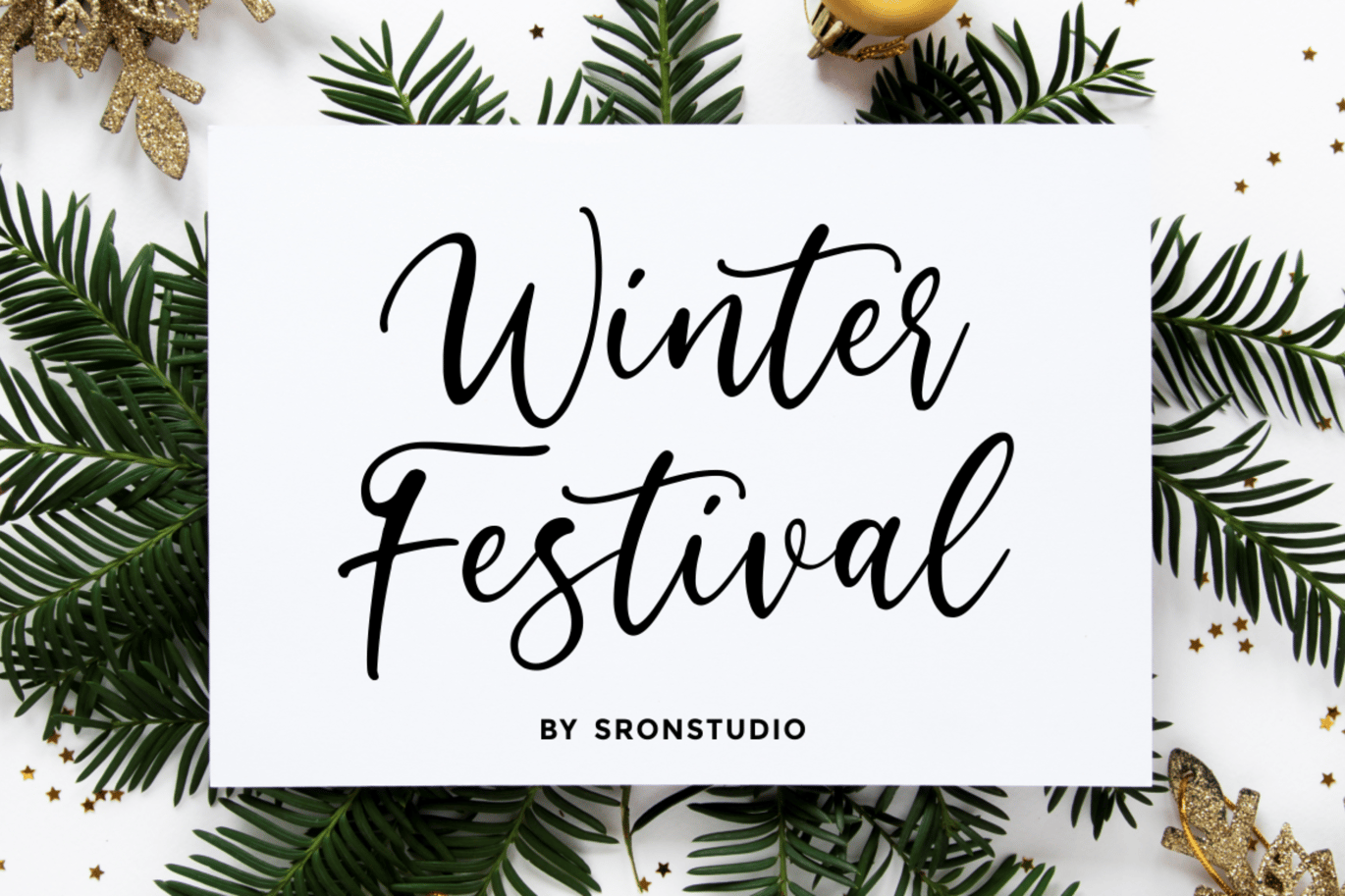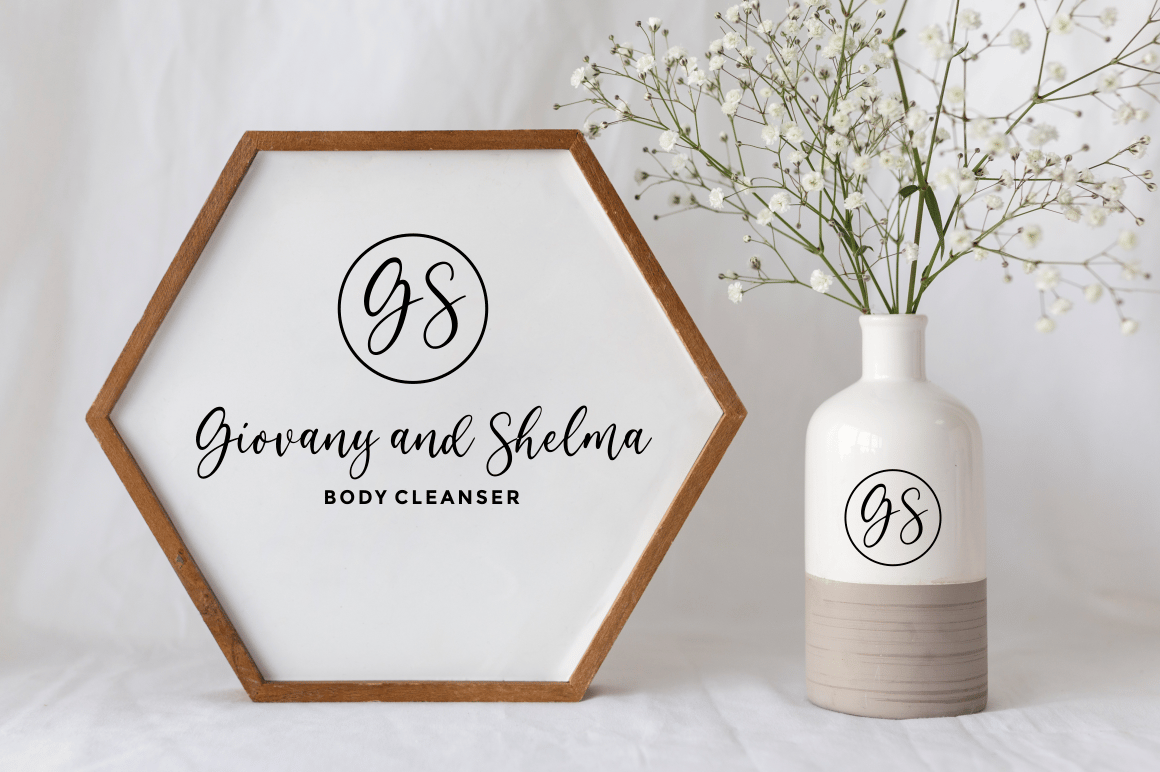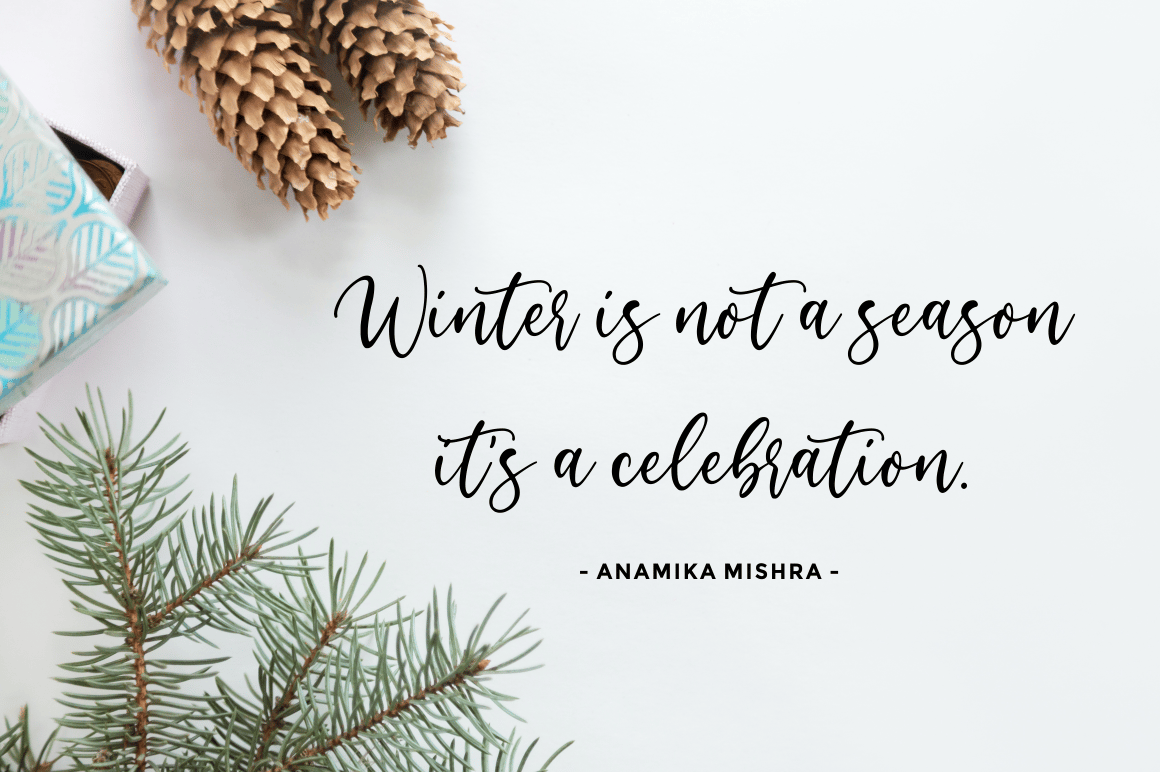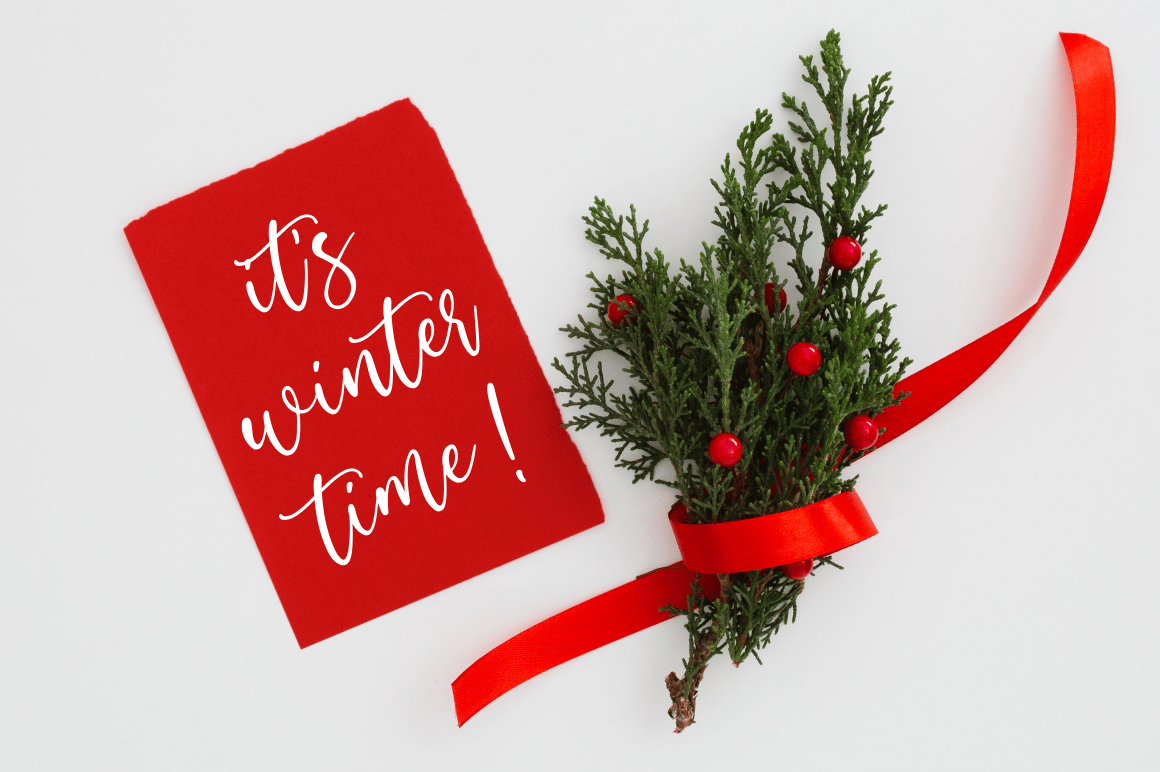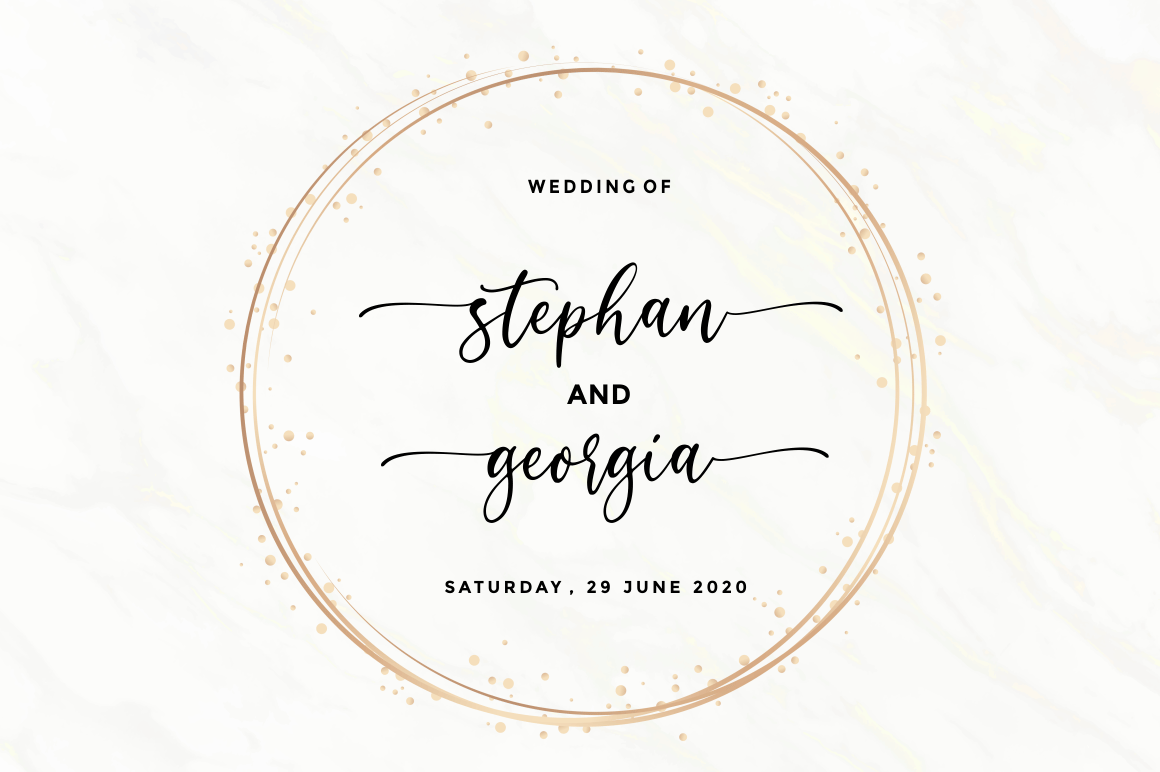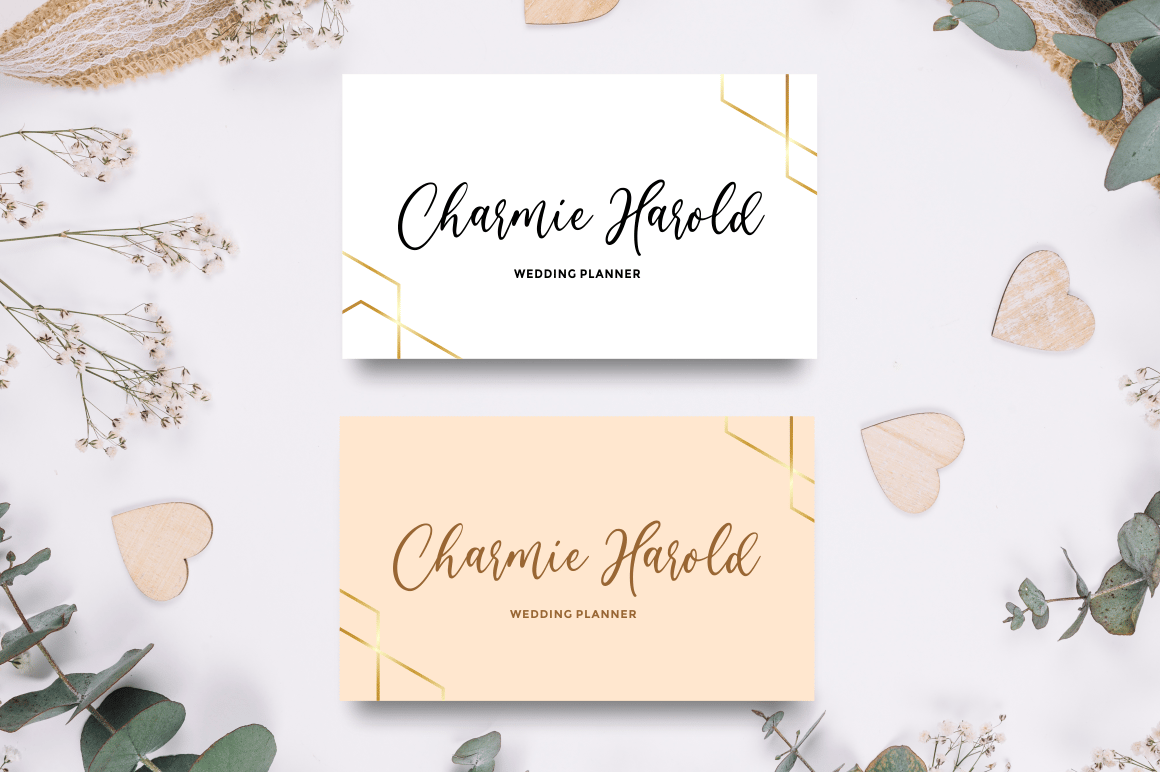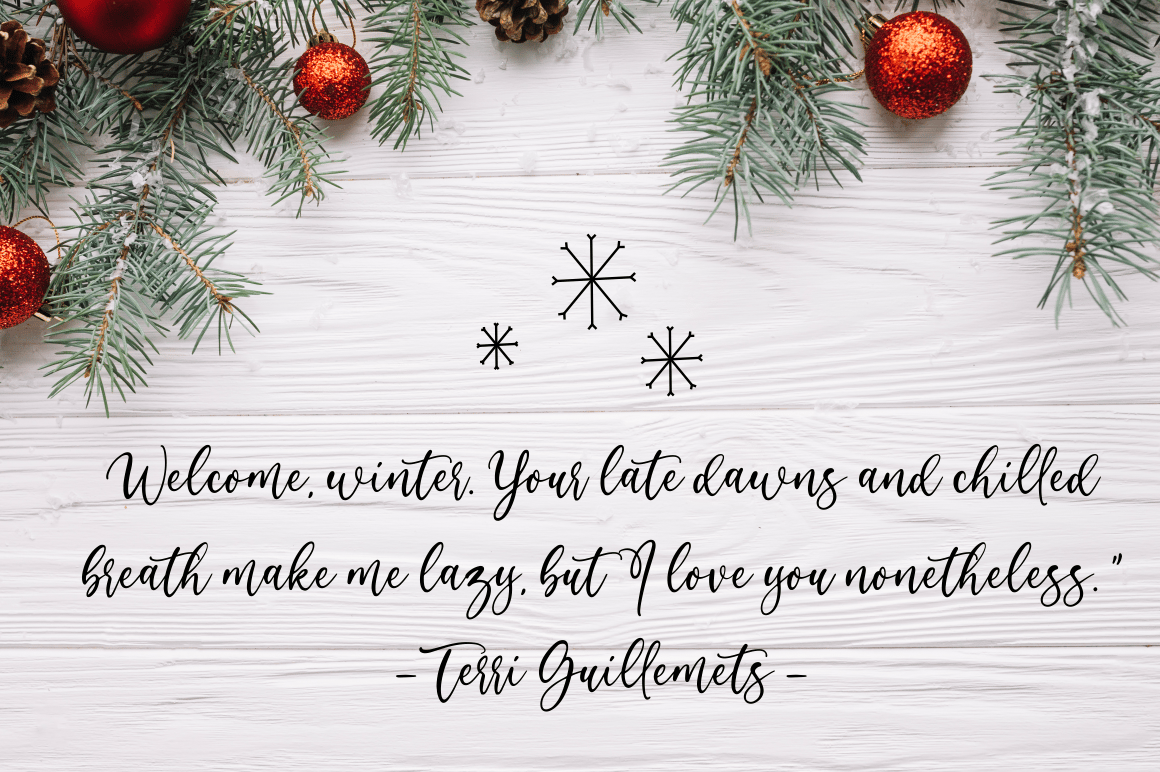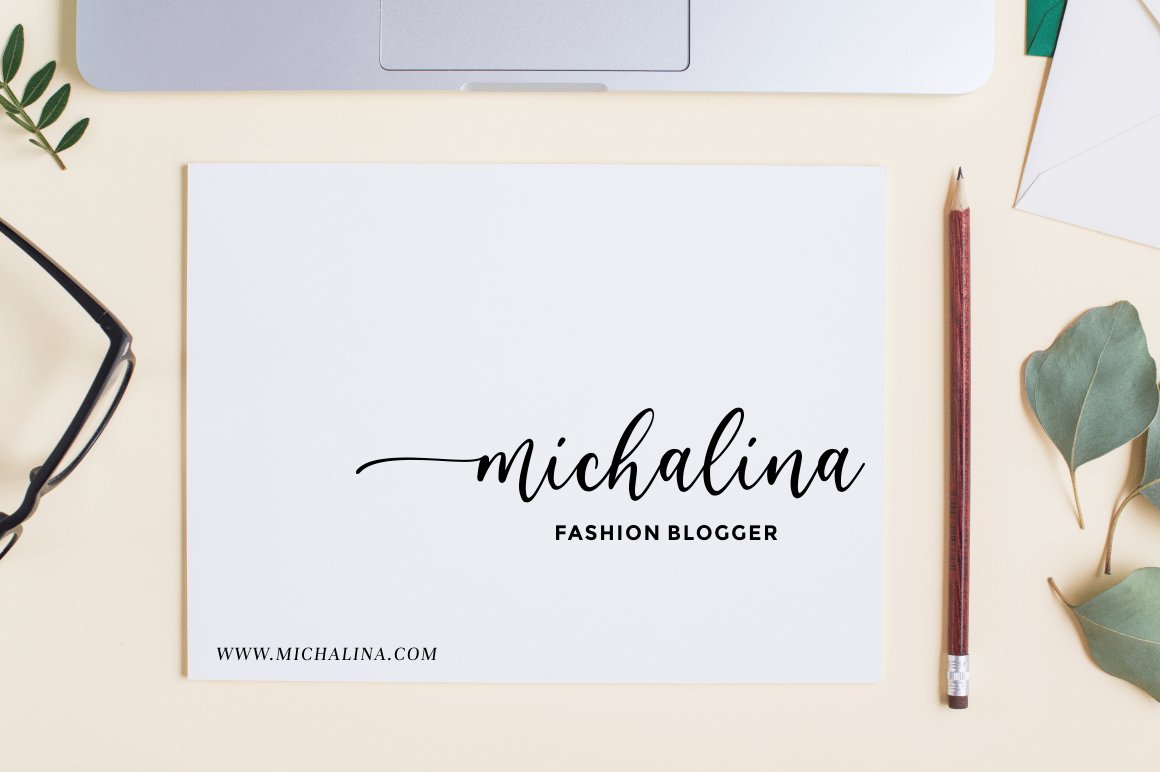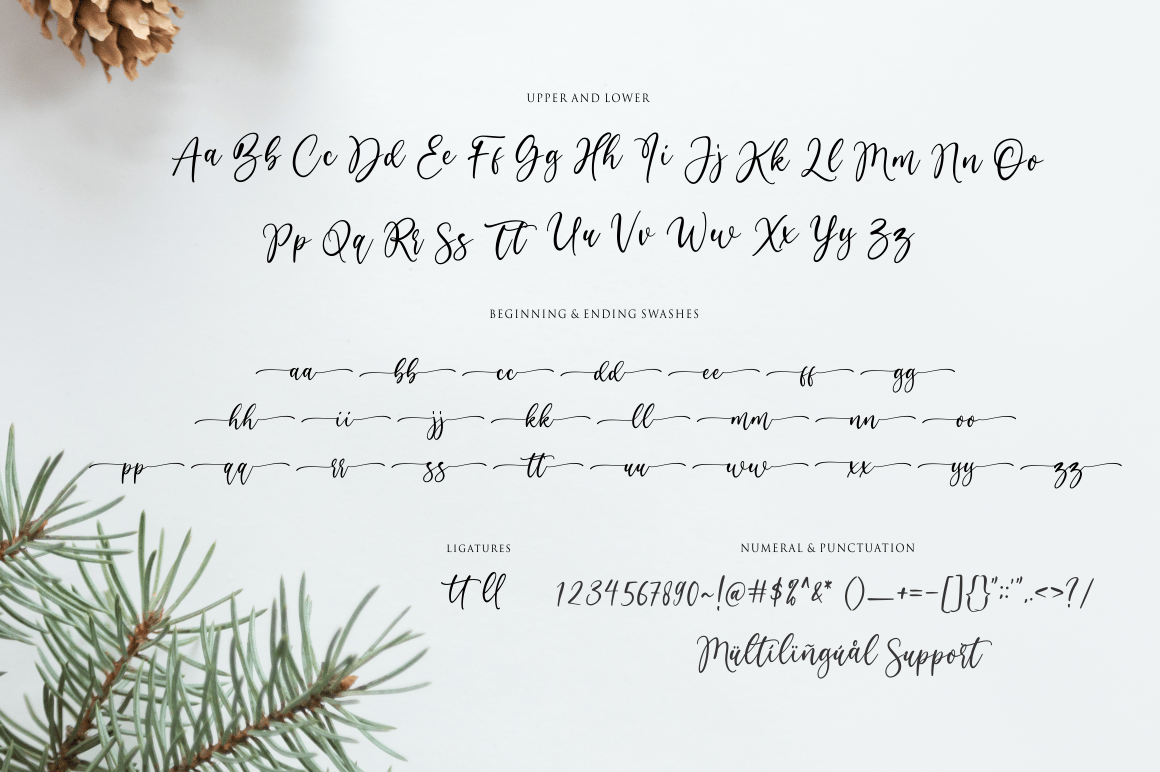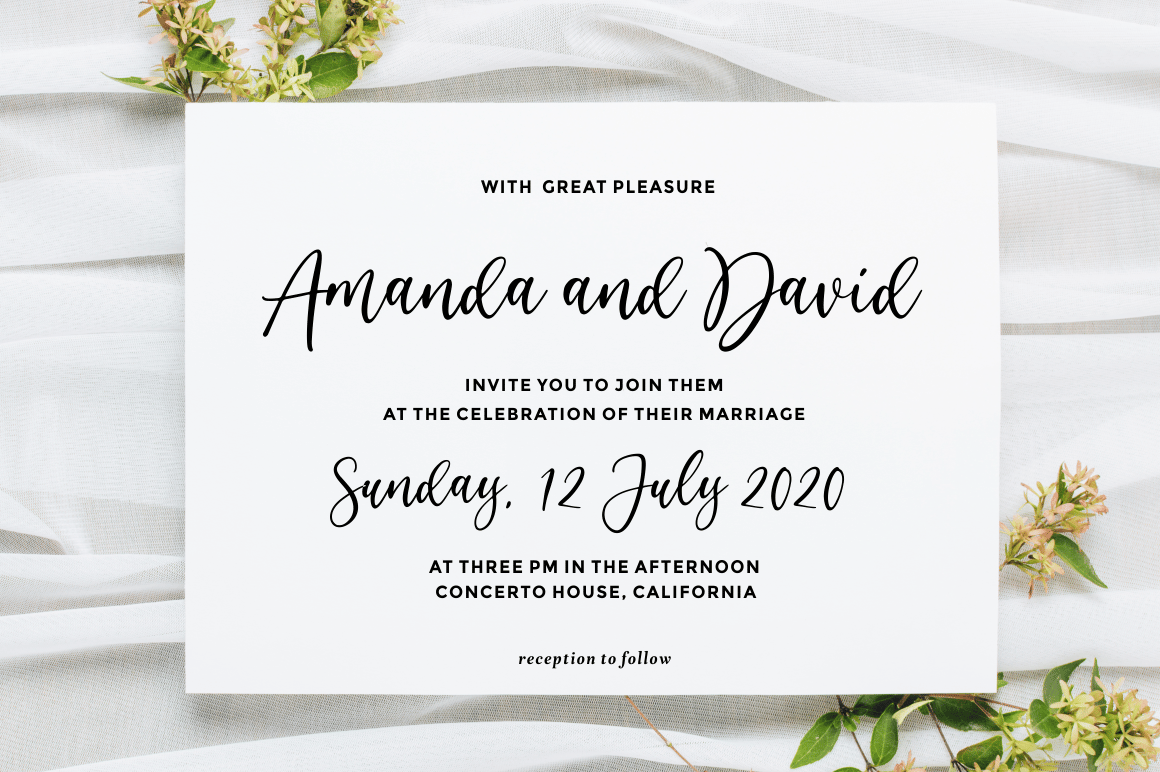
Winter Festival – Modern Script Font
Winter Festival is a beautiful calligraphy font perfect for branding, invitation, stationery, wedding designs, social media posts, advertisements, product packaging, product designs, label, photography, watermark, special events, or anything.
Winter Festival comes with a full set of uppercase and lowercase letters, swash alternates, ligatures, multilingual symbols, numerals, and punctuation.